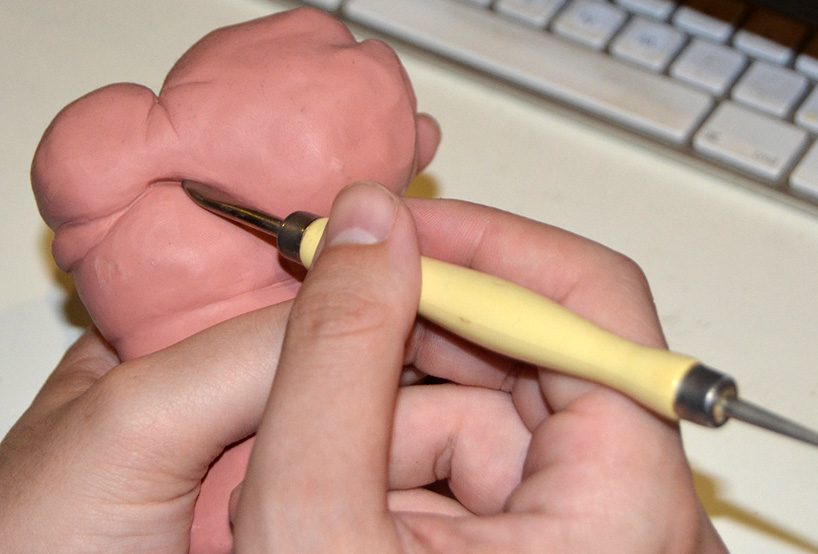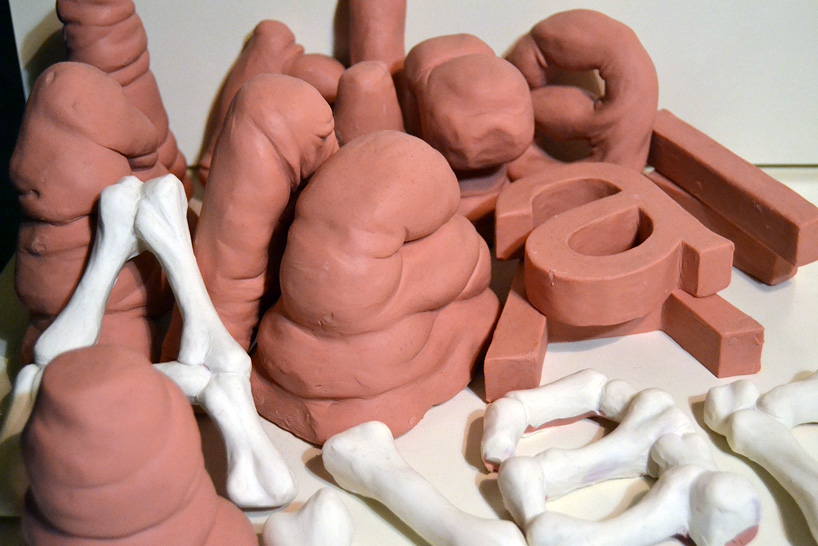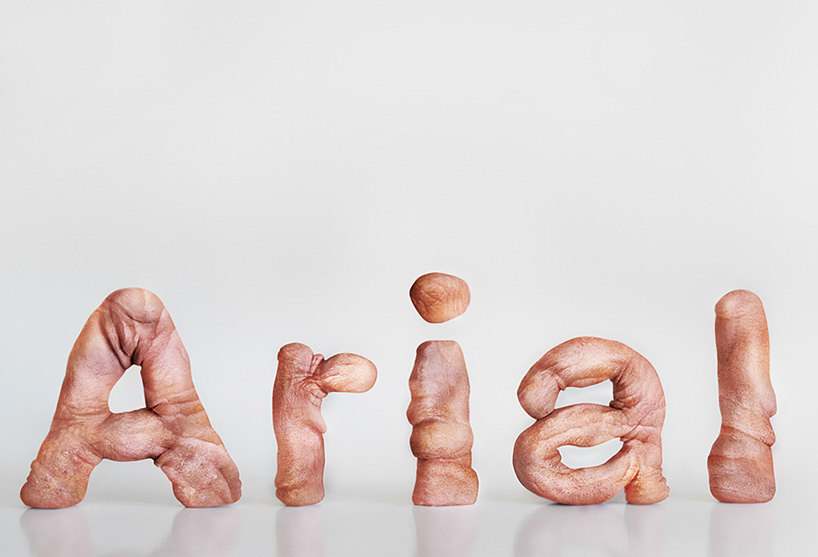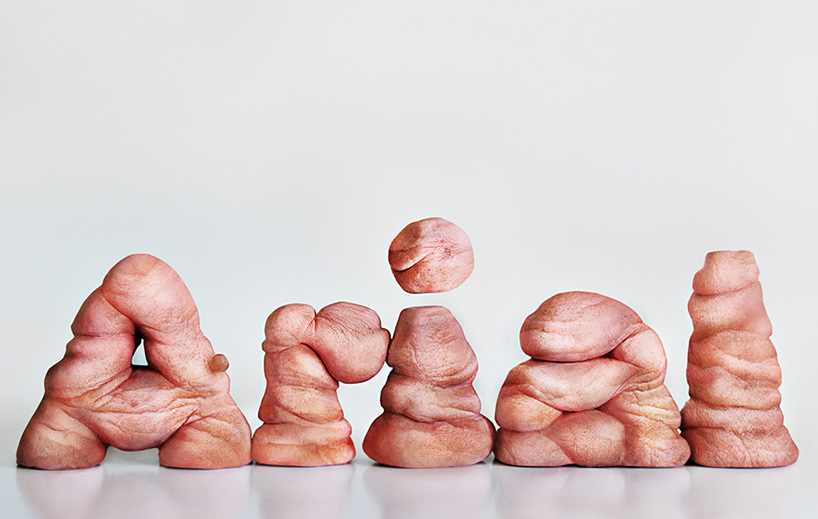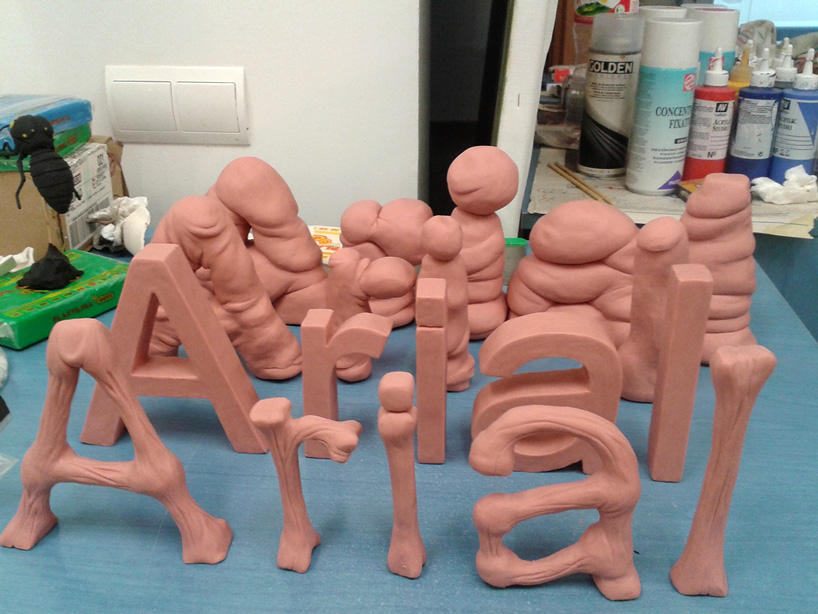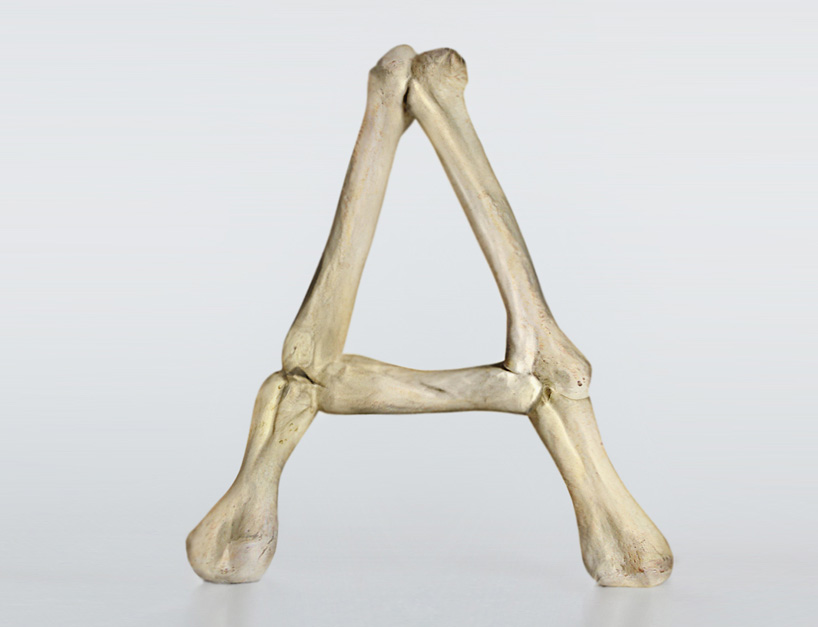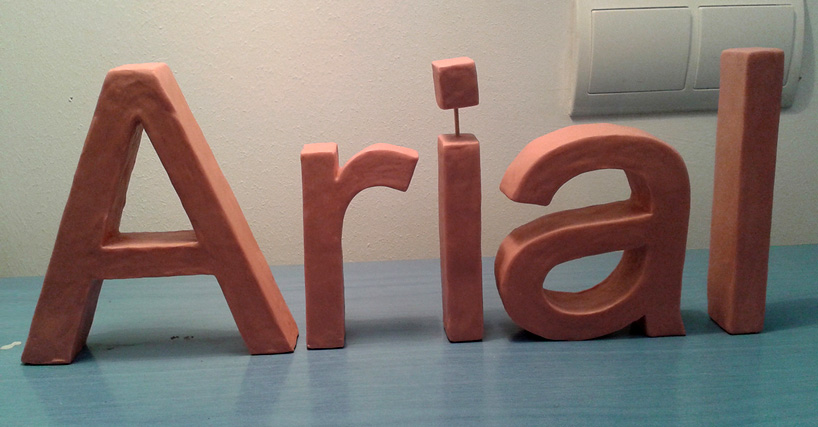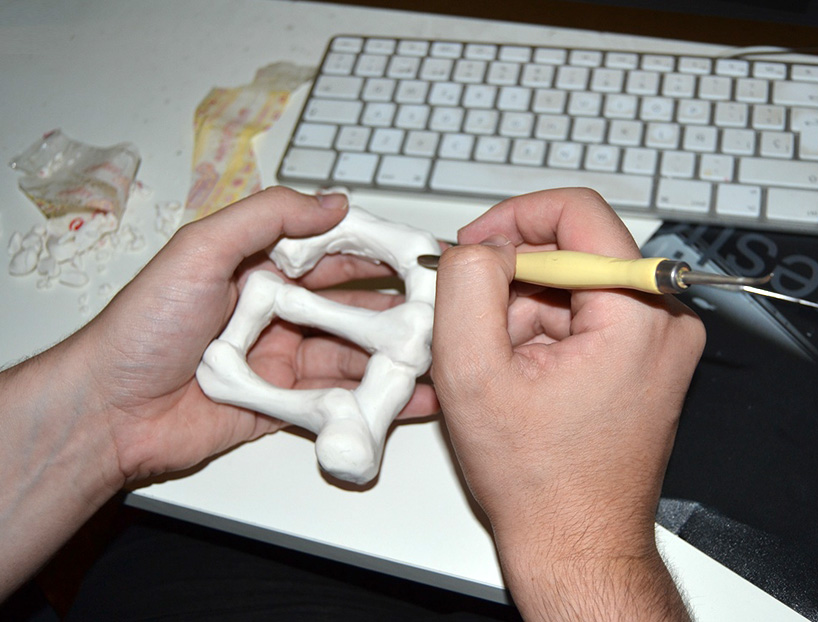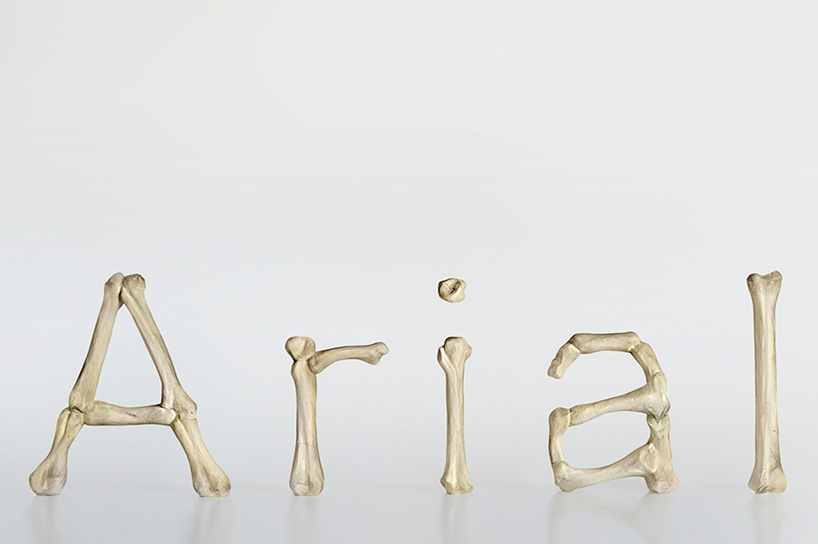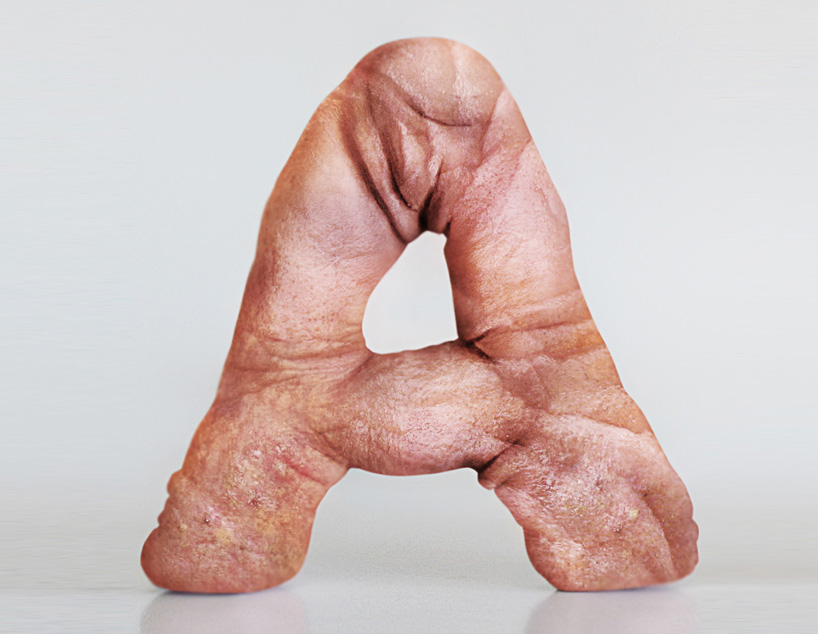
designers visualize font weights of the arial typeface as human flesh
changes in the font 'weight' are imagined as physical sizes of the human body, spelled out using the 'arial' typeface.
(above) arial black
barcelona-based designers alex palazzi, eudald carré and mio ouchi form the project ‘arial family’ as an experimental series that investigates a proposed relationship between typography and the human body. changes in the font ‘weight’ are imagined as physical sizes of the human body, spelled out using the ‘arial’ typeface. black, bold, regular and light variations are visualized with a realistic texture that mimics the skin, with wrinkles, folds, moles and bones intricately spelling out the typeface name.
arial bold
arial regular
arial light
detail of the A for arial bold
detail of the A for arial regular
detail of the A for arial light
letters sculpted from clay
clay letterforms were sculpted for reference
sculpting the letters
carving the arial light letter